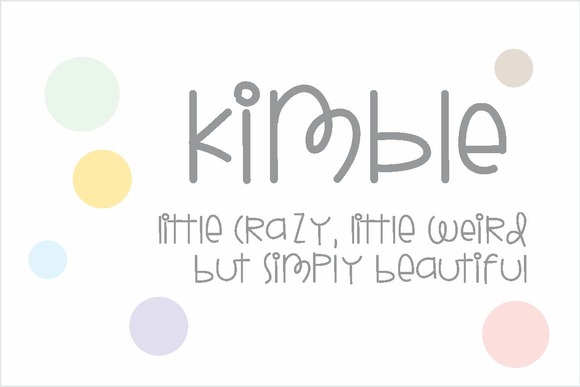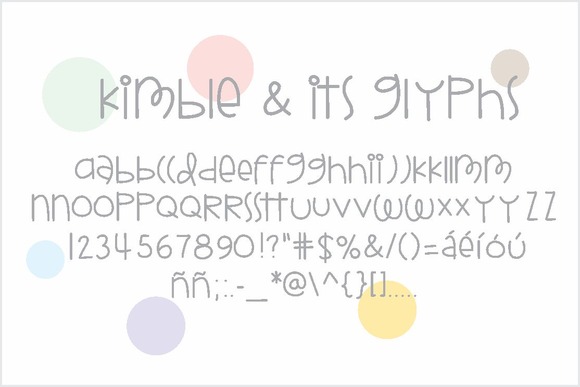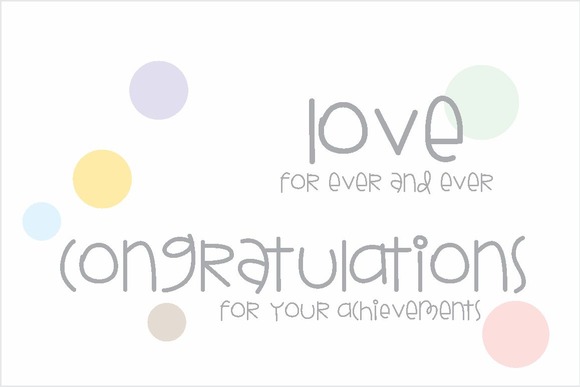
Introduction to Kimble Font
Kimble is a unique, beautiful typeface and can be used for various purposes such as magazine or newspaper articles, books, advertising, brochures, documents, illustrations, booklets, billboards, business cards, packaging, high-resolution videos, presentations, postcards, calendars, posters, t-shirts, print & presentations templates and much more.
Kimble Font offers exceptional quality and versatility, making it a valuable addition to your design toolkit. Whether you’re creating for personal projects or commercial use, Kimble Font delivers professional results.